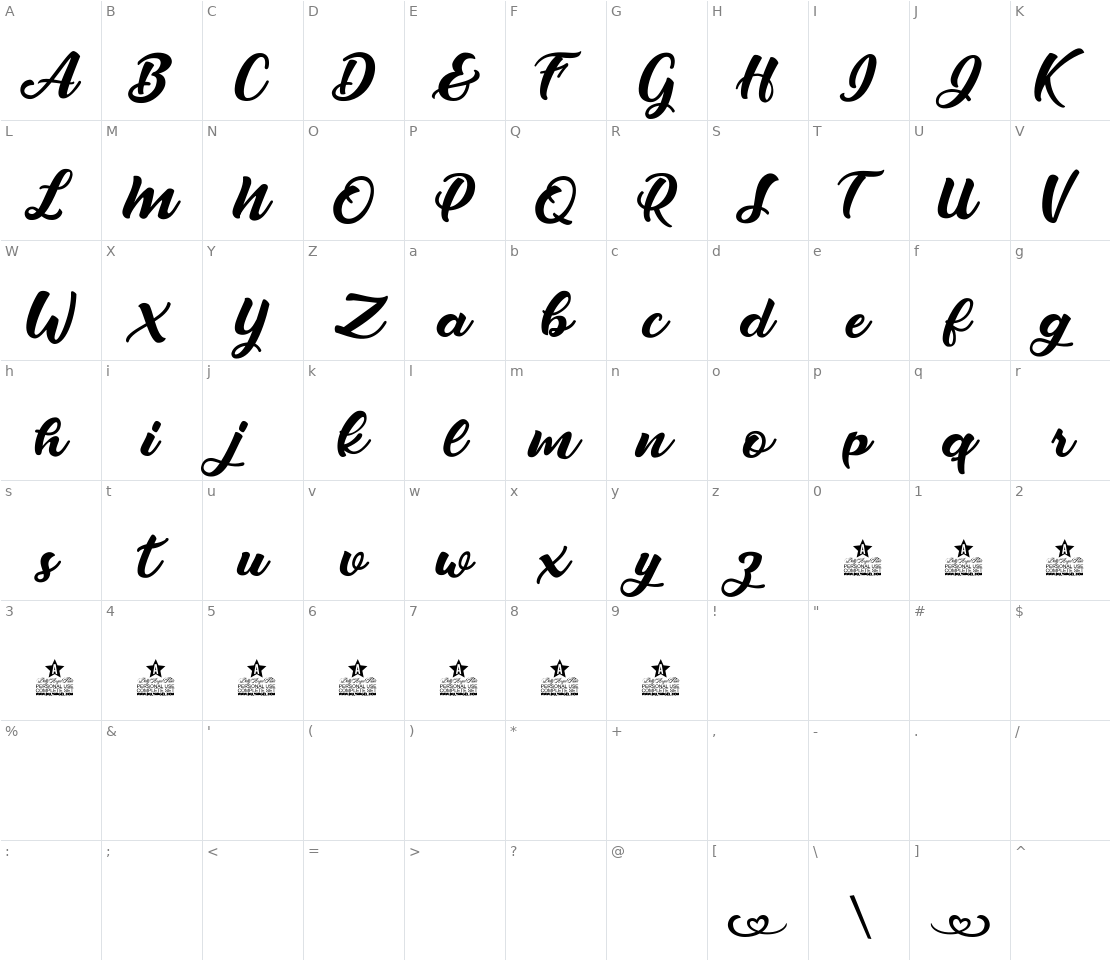
Crazy Love
Crazy Love is a bold brush script from Billy Argel with thick, sweeping strokes and connected letterforms that feel both romantic and energetic. The cursive has real movement to it, loose and expressive rather than fussy, which gives it a playful warmth that works for wedding invitations, greeting cards, and headline lettering where you want something heartfelt without being overly formal.